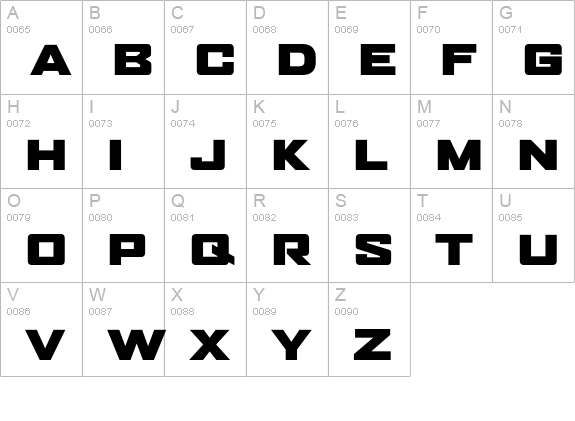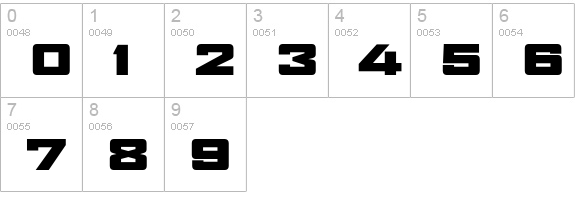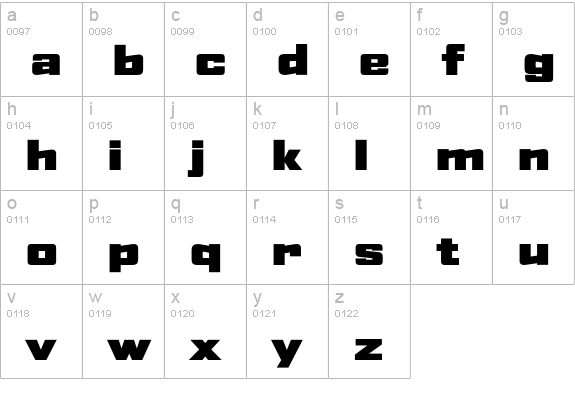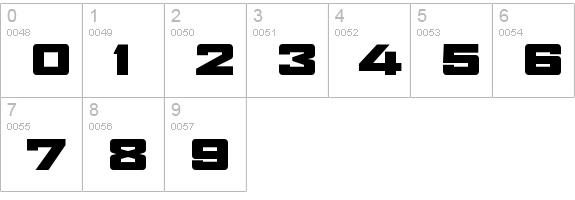
AgencyFB-BlackExtended Font Details
The AgencyFB-BlackExtended font is a striking and bold typeface that exudes power and modernity. Its extended design gives it a unique and commanding presence, making it perfect for headlines, logos, and other display purposes. The sharp lines and strong strokes of this font make a bold statement while maintaining a sleek and professional appearance. The best part? AgencyFB-BlackExtended is available for free download at FontsMarket.com! This means you can easily add this impressive font to your design arsenal without any cost. Whether you're working on a branding project, advertising campaign, or any other creative endeavor, AgencyFB-BlackExtended is sure to make a bold impact. Download it now and elevate your designs with this striking typeface.